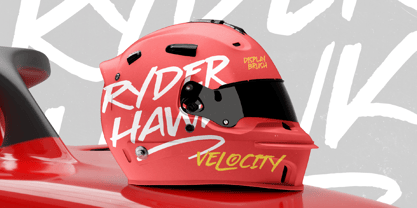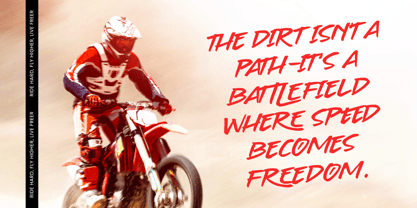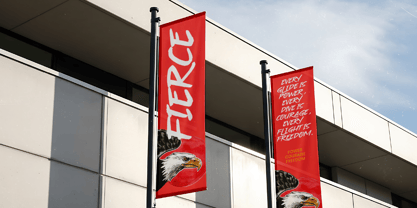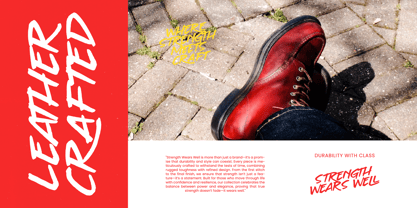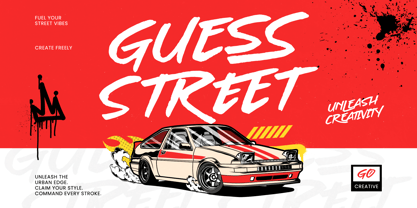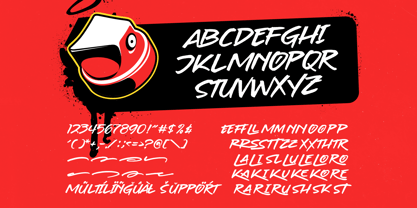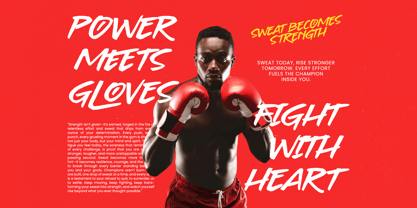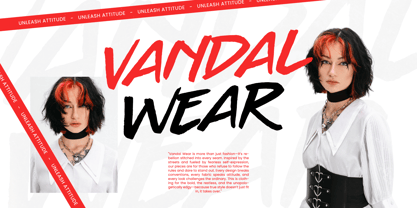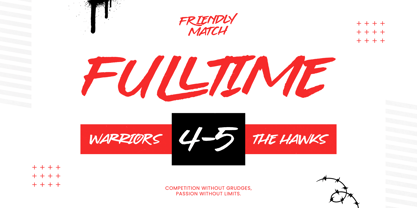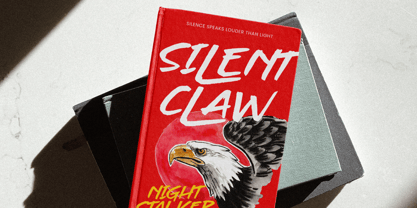
Guess Street
by Stylishtype Studio
The Guess Street Font Family was designed by Heru Utama Putra and published by Stylishtype Studio. Guess Street contains 2 styles and family package options. More about this family
Guess Street – Display Brush Font, a powerhouse typeface designed for maximum visual impact. This display brush font captures the essence of street-style grit with its hand-drawn aesthetics and high-contrast strokes, ensuring your headlines command immediate attention. Whether you are aiming for a rebellious edge or a fast-paced athletic vibe, Guess Street – Display Brush Font provides the authentic dry brush texture needed to make your designs vibrate with life and energy.
Elevate your branding to elite levels with a typeface that is perfect for streetwear apparel, automotive racing graphics, and high-octane event posters. The Guess Street – Display Brush Font excels in luxury branding that seeks a modern, aggressive twist, as well as dynamic packaging and bold editorial layouts. Its expressive character makes it the ultimate choice for designers looking to inject raw motion and contemporary attitude into their commercial portfolios and marketing campaigns.